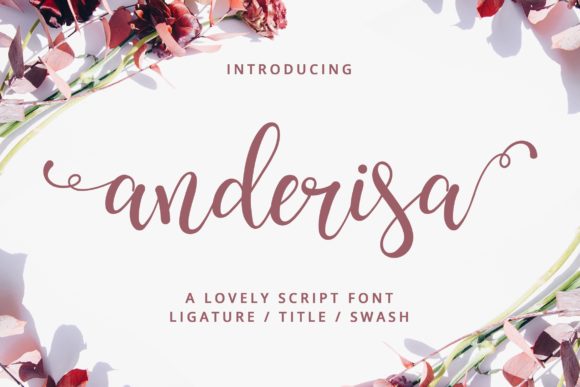
Immerse yourself in the enchanting realm of Anderisa, a script font that dances with elegance and charm. Crafted by the visionary artisans of practype, this breathtaking font embodies the essence of creativity and heartfelt expression.
Like a whisper of wind through a field of wildflowers, Anderisa flows with an ethereal grace that captures the attention of all who behold it. Its delicate curves and playful strokes evoke a sense of nostalgia, inviting you to reminisce about cherished moments and the warmth of handwritten love letters.
Whether you're crafting exquisite wedding invitations that will be treasured for a lifetime or designing captivating branding that resonates with your audience, Anderisa is the perfect choice. Its versatility extends to apparel, where it can transform ordinary garments into extraordinary works of art that exude sophistication and style.
With Anderisa, you'll have the power to evoke emotions, convey messages with impact, and leave an unforgettable impression on the world. Its versatility knows no bounds, making it the ideal companion for any project that calls for a touch of enchantment and the timeless allure of the written word.
Embark on a creative journey with Anderisa, where your imagination takes flight and your designs blossom into masterpieces. Let this enchanting font guide you through a world of possibilities, where every stroke tells a captivating story.